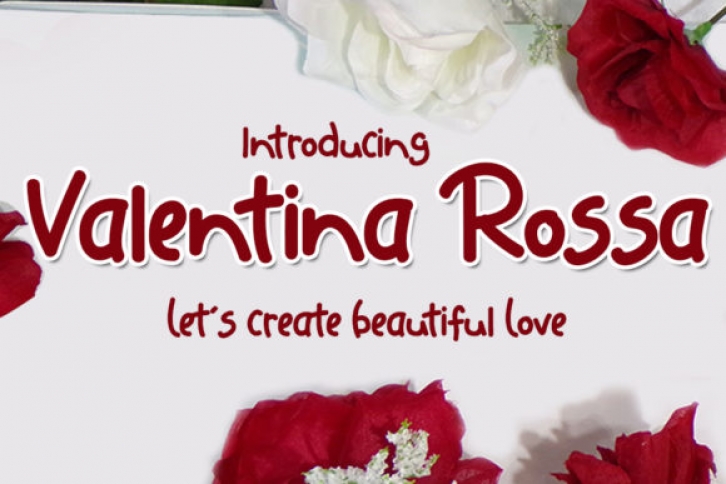
Valentina Rossa is a modern and beautiful handwritten font. It can be used for various purposes such as logos, wedding invitations, headings, t-shirts, letterhead, signage, labels, news, posters, badges and so much more.